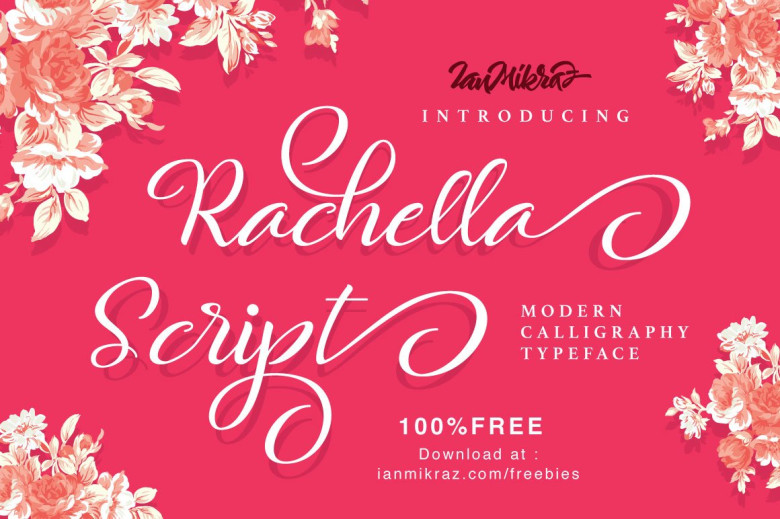
Rachella Script Font
Wonderfulness, which is sent first start of my, continues to be a beautiful script font, coming from Dirtyline Studio. Introducing Rachella Script Font! Rachella designed and shared by Ianmikraz studio. Rachella Script Free Typeface is a new modern calligraphy Typeface Fonts collection from Ianmikraz studio, combines from copperplate to contemporary typeface, classic, beauty and elegant touch.
Rachella Script Free Typeface features 270 glyphs and 87 alternate character contain with opentype features. Swash Alternates, Stylistic Alternates, Standart Ligature and more. You can access all those alternate characters by using OpenType savvy programs such as Adobe Illustrator, Adobe InDesign and CorelDraw X6-X7.